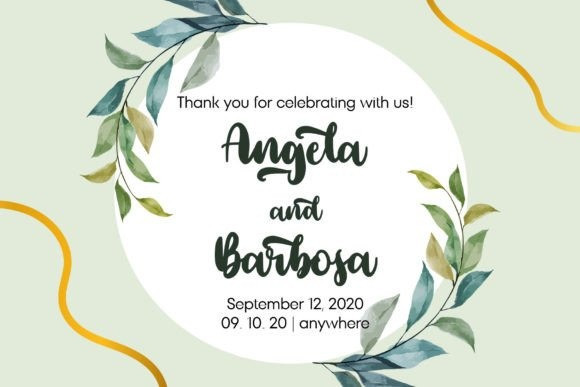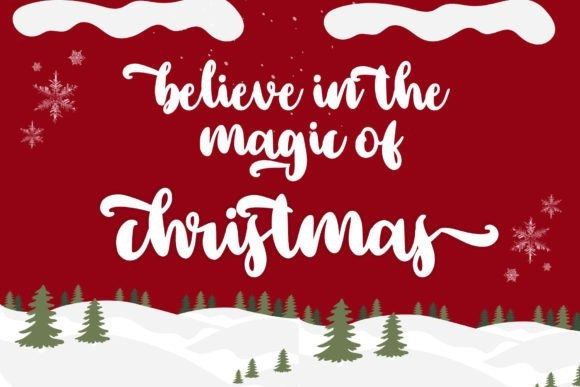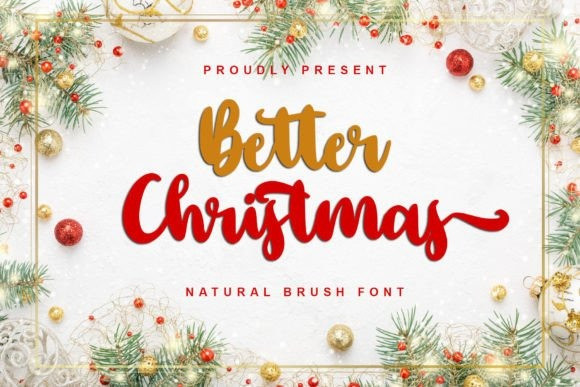
Better Christmas Font
Better Christmas Script Font is a dazzling and timeless handwritten font. It is the best choice for your Christmas season. This font is PUA encoded which means you can access all the glyphs and sweeps easily!